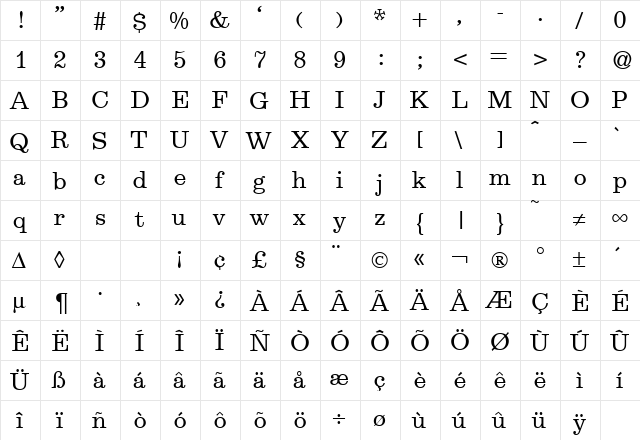
Egoist DB Regular
Design Context for Egoist DB Typeface
Egoist DB is a composed and adaptable typeface that performs quietly and consistently across a wide range of design contexts.